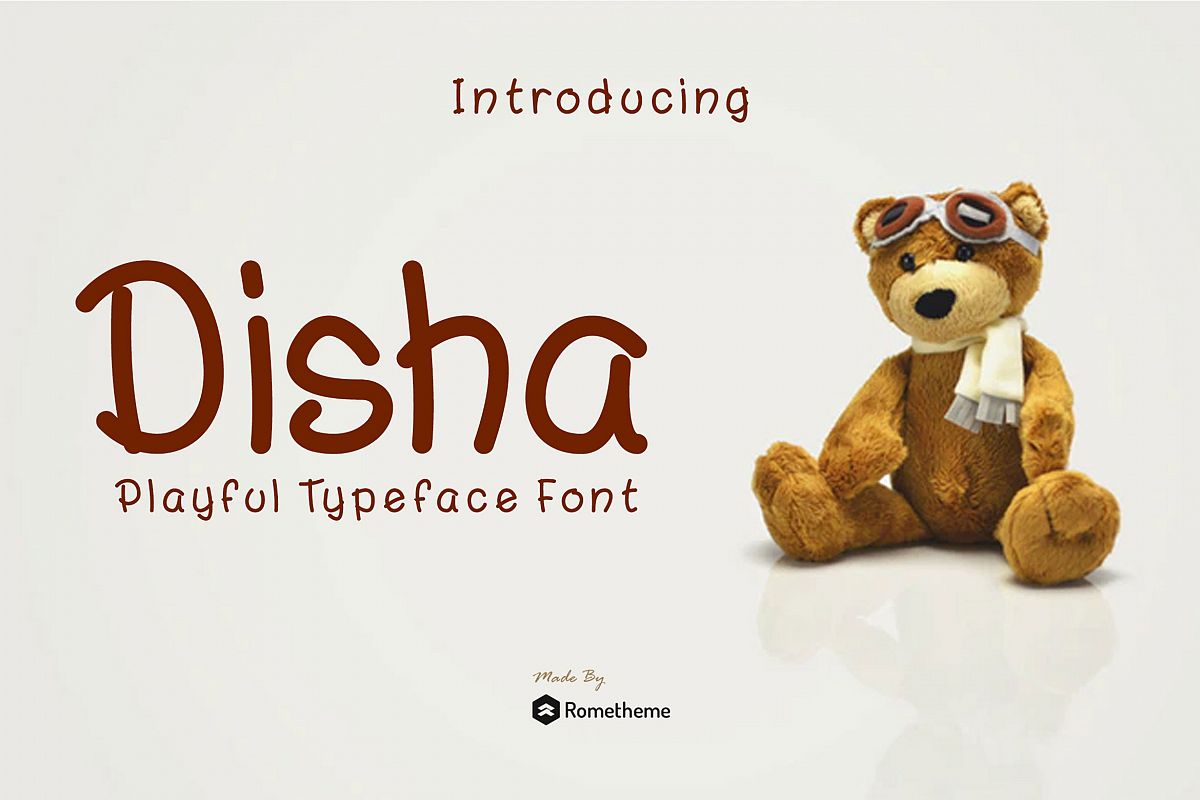
Disha - Playful Font
Disha
Disha is a font, playful typeface. It has an elegant, classy look and cool. It’s a great font for fashion, apparel projects, album cover, logo, branding, magazine, social media, & advertisements, but also works great for other projects.